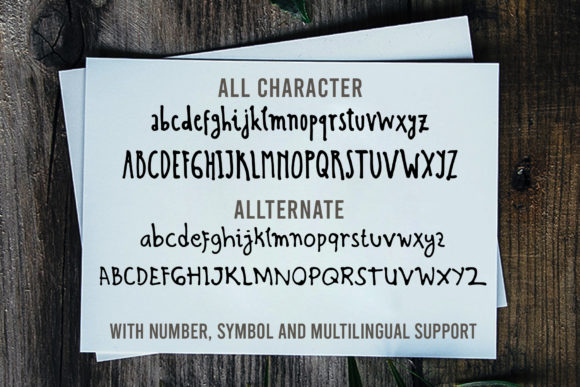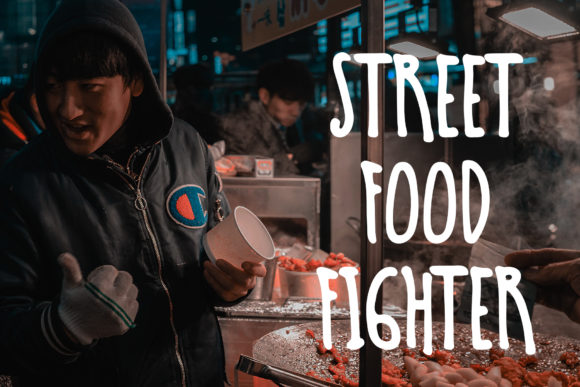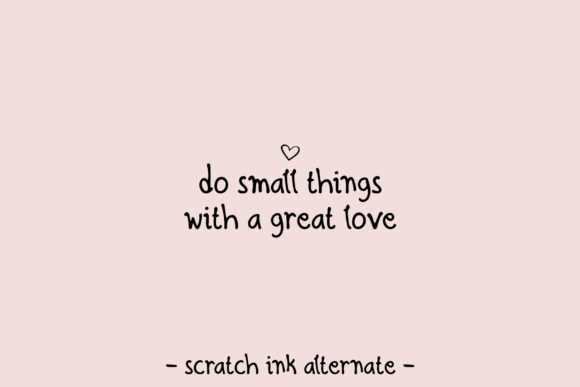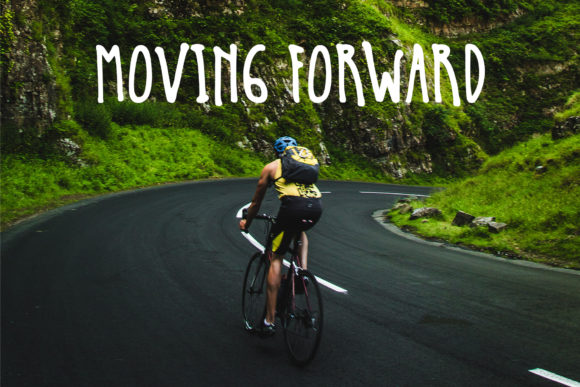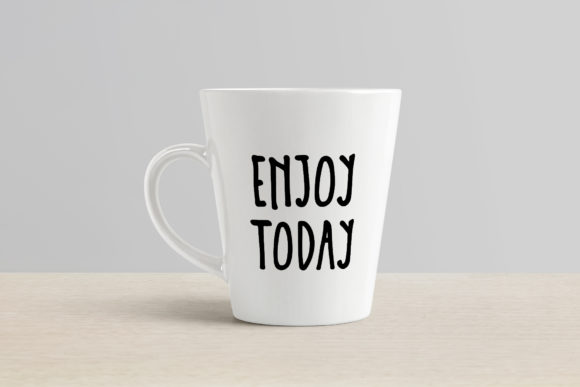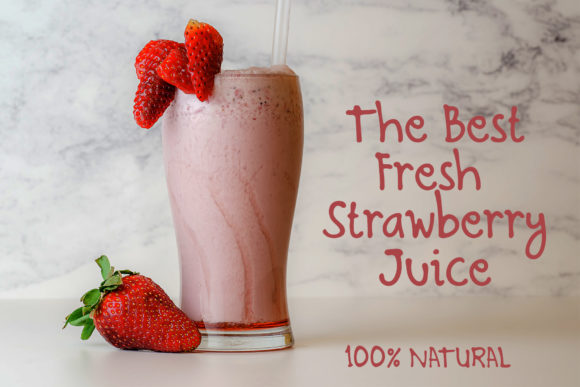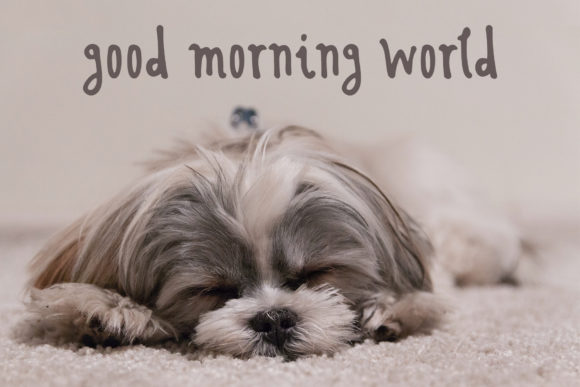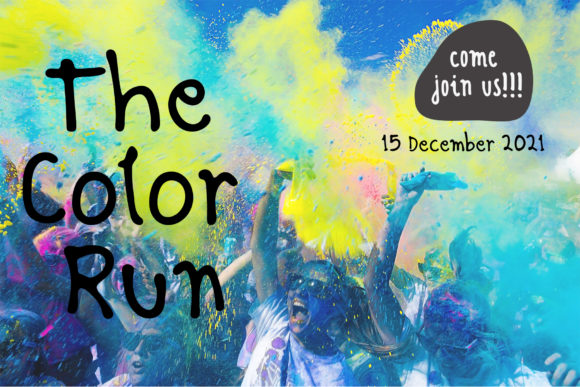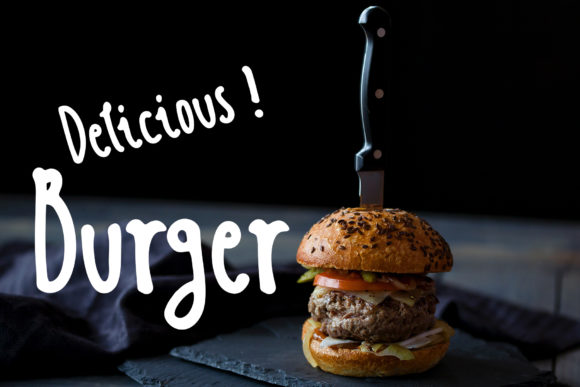
Scratch Ink Font
About Scratch Ink Font
Scratch Ink is a sweet and friendly handwritten font. Its natural and unique style makes it incredibly fitting to a large pool of designs. The only limit is your imagination!